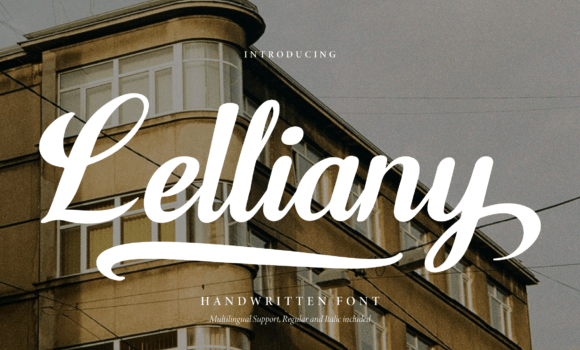
lelliany
Lelliany Font – Free Download Introduction to Lelliany Font Lelliany is a beautiful handwritten script font. 📸 Preview Gallery 6 images 📌 Product Name Lelliany Font 👤 Author Gracetypestudio 📂 Category Explore ⬇️ Download Lelliany Font FREE Free Download •